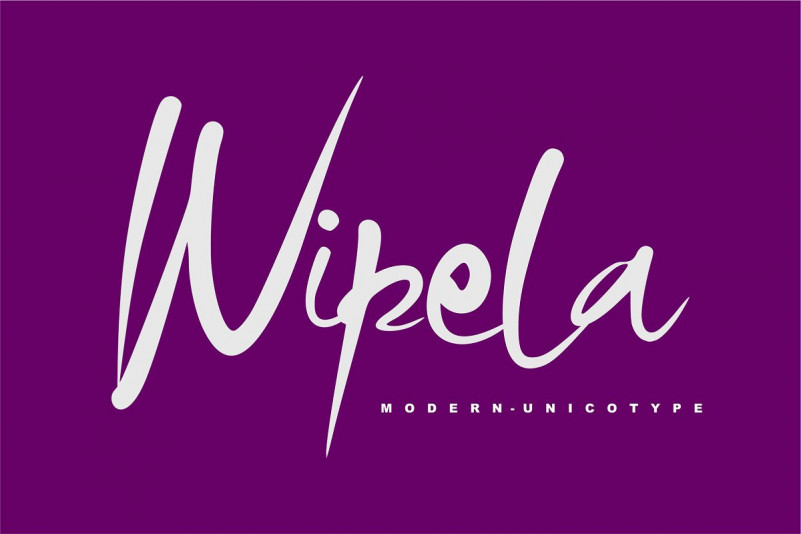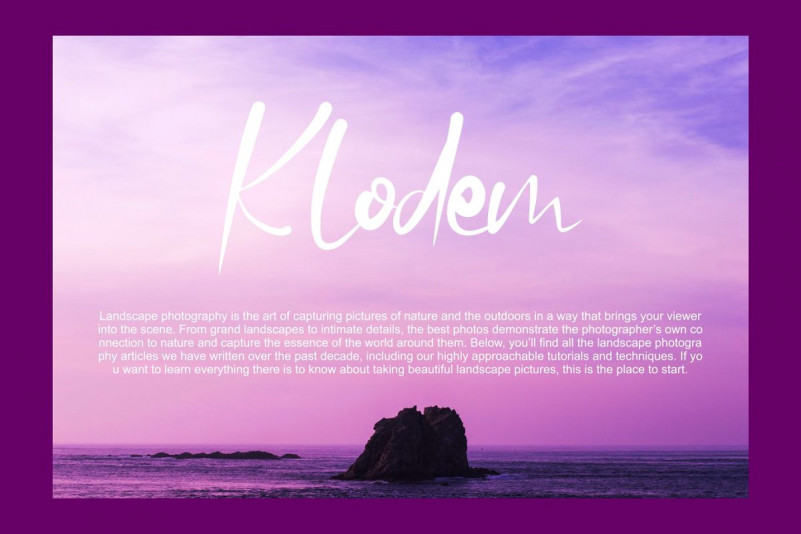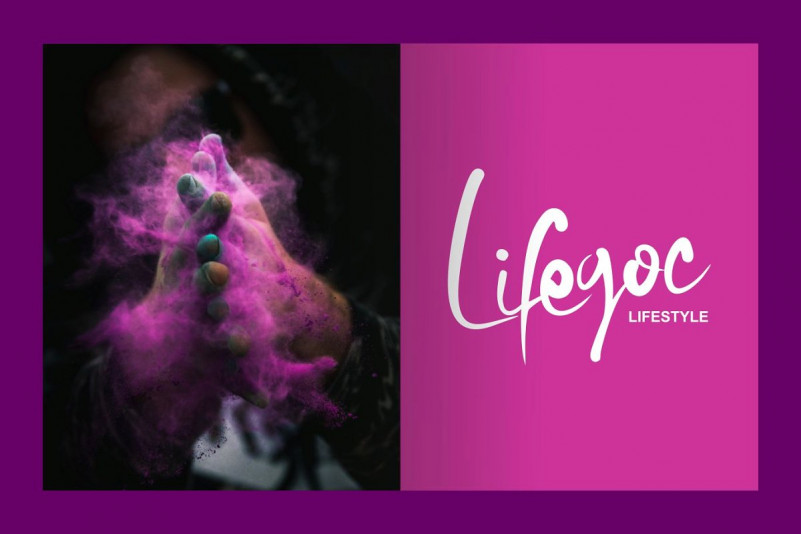
Wipela Font
Wipela FontWipela | Modern Unicotype Font with a calligraphy style, So beautiful on invitation like greeting cards, branding materials, business cards, quotes, posters, and more!
Wipela Font